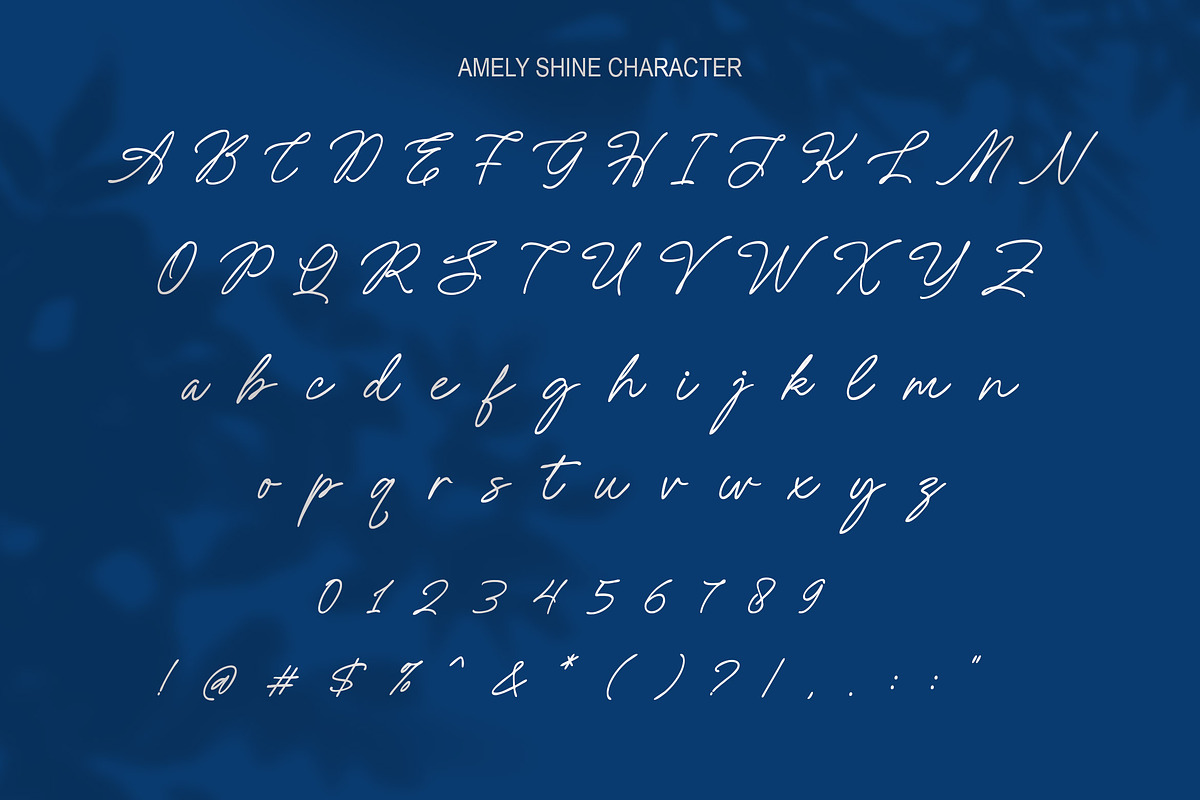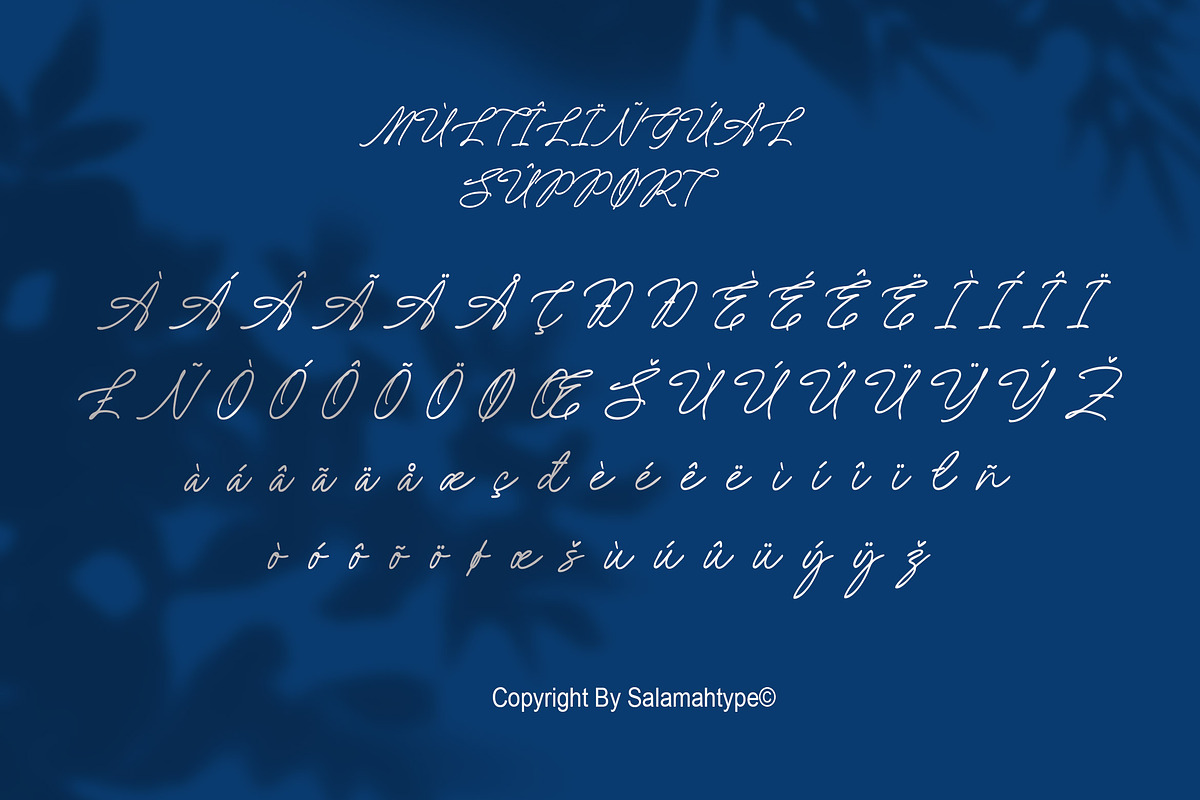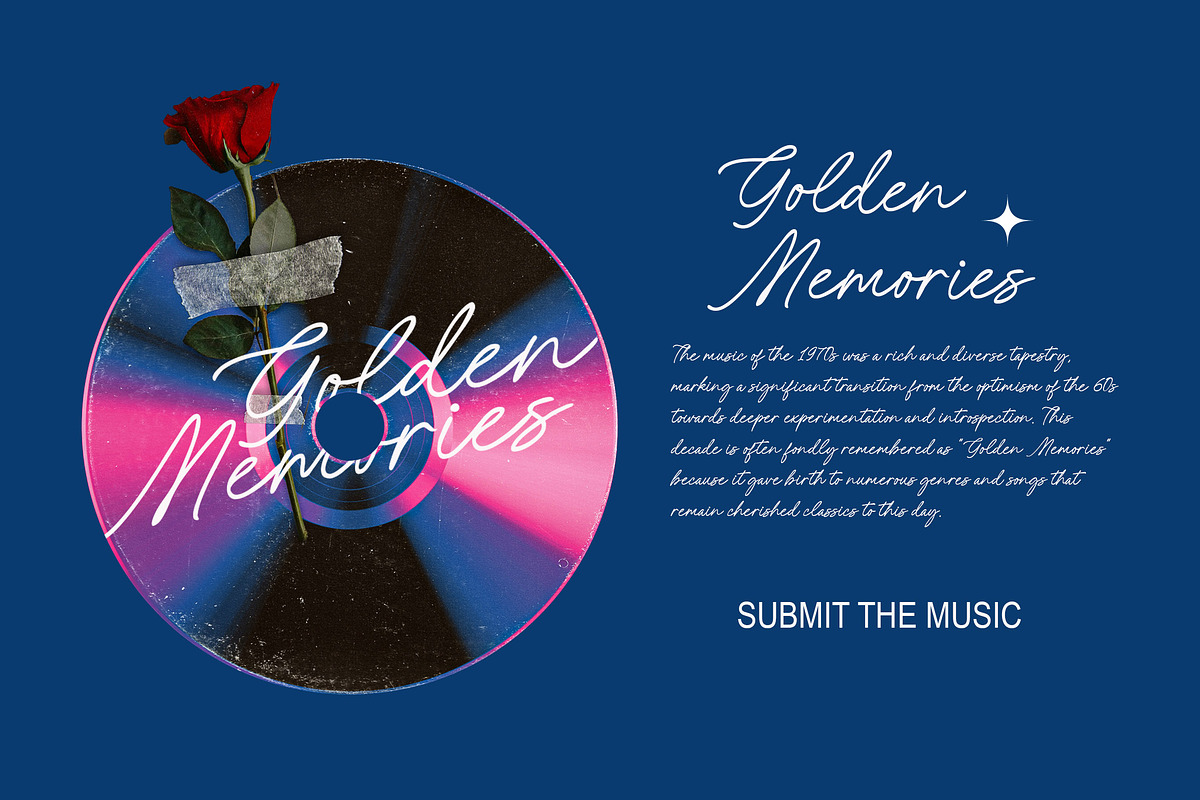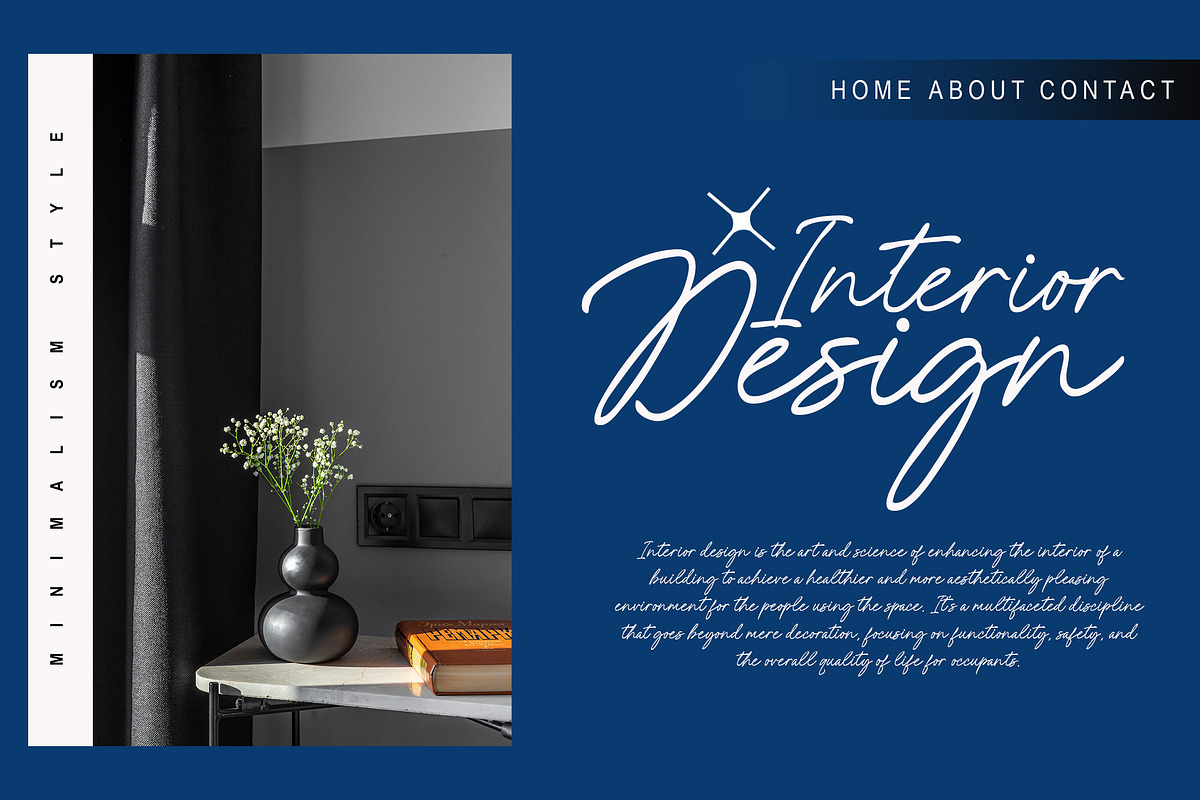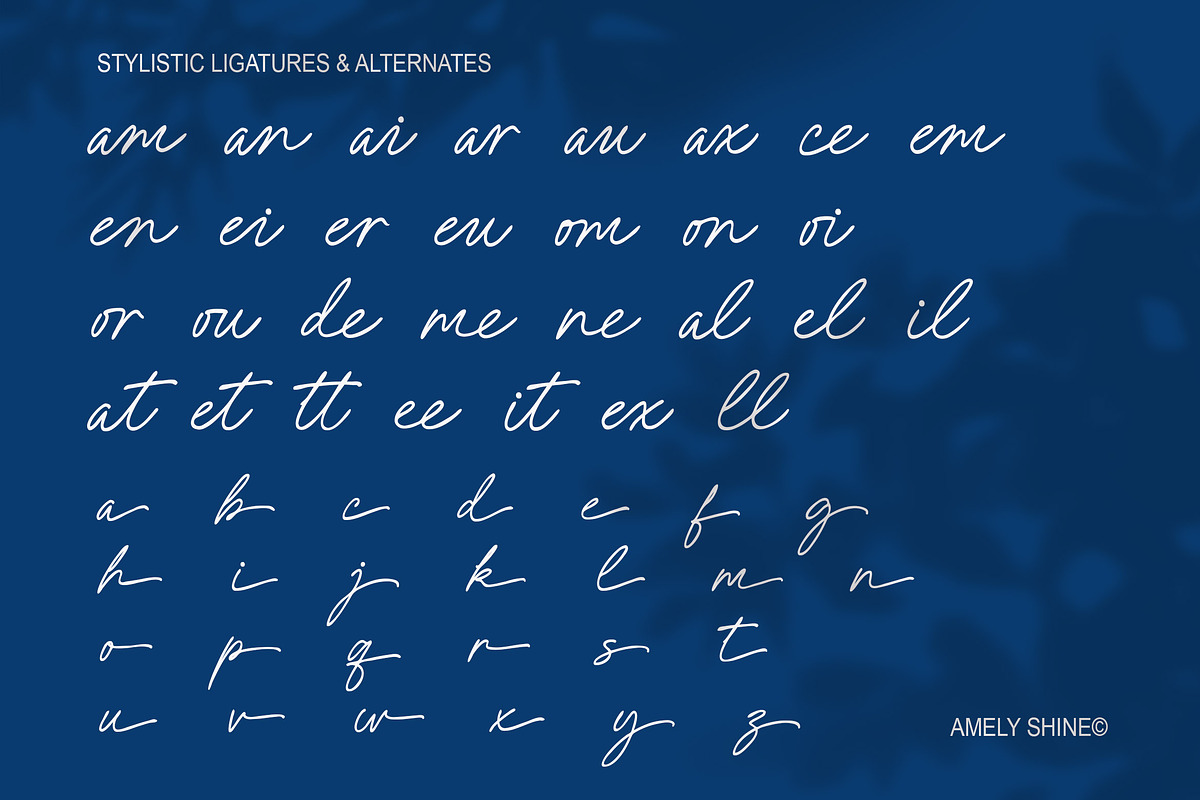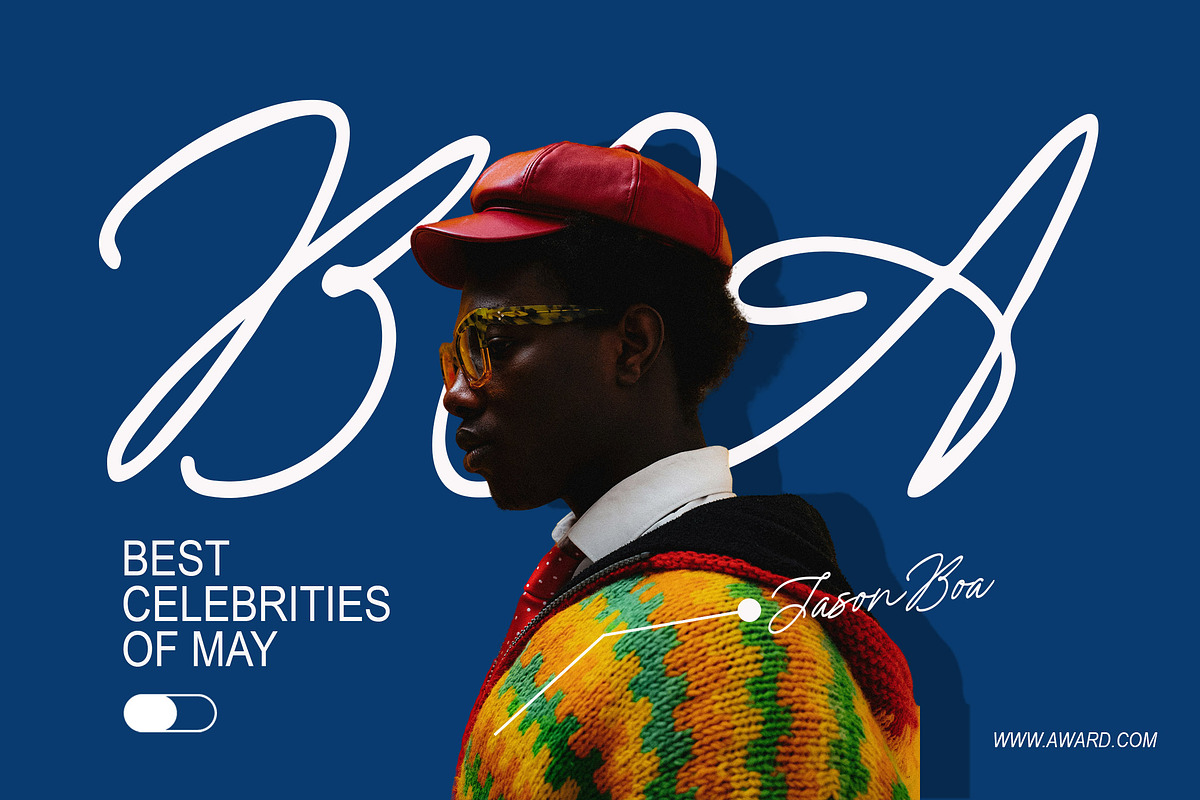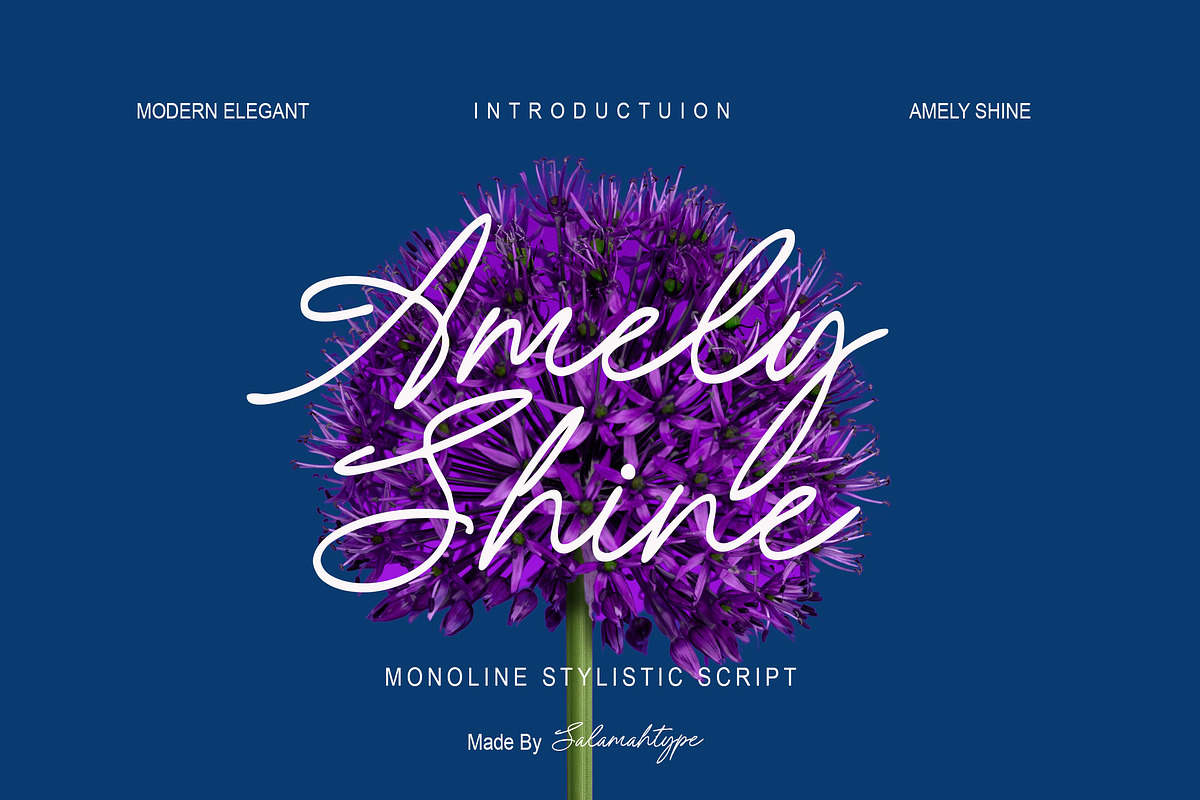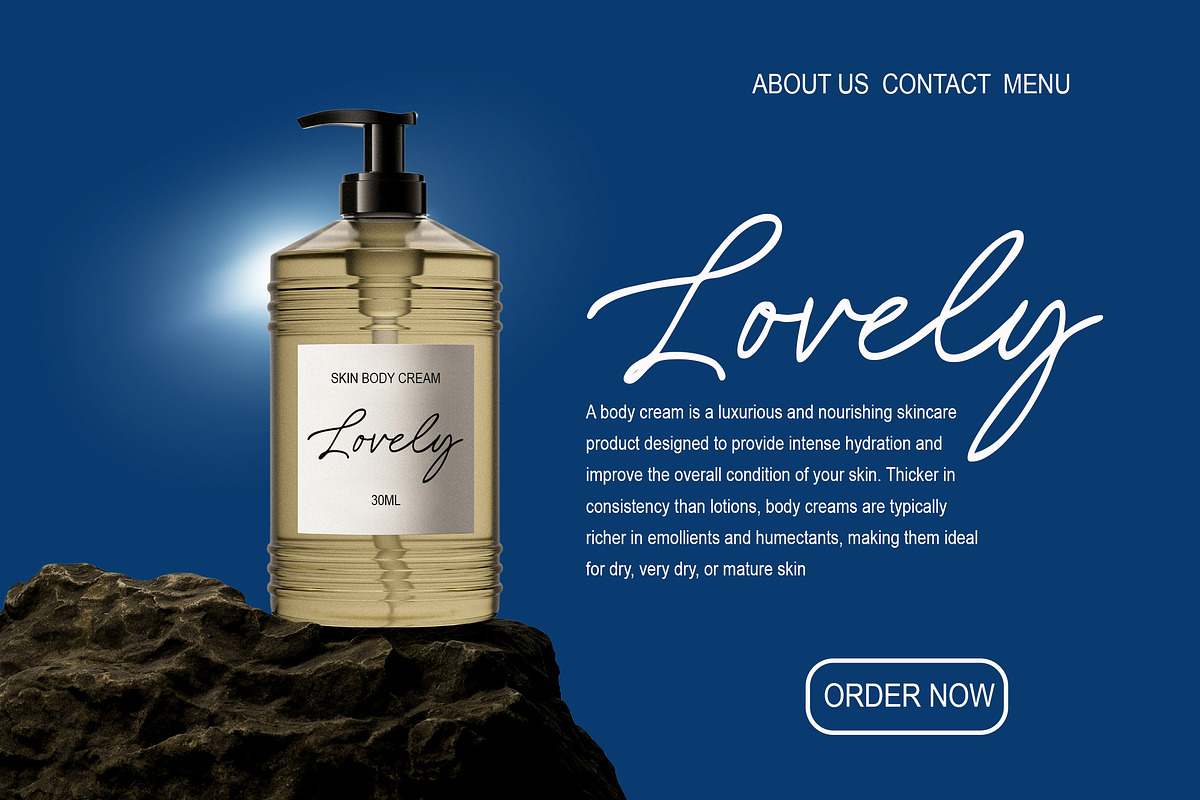
Amely Shine - Beautiful Script Font
Introducing Amely Shine, a modern and elegant monoline script font that brings a graceful and handwritten charm to your creative projects. With its fluid strokes and stylish curves, Amely Shine is perfect for adding a personal, sophisticated touch to wedding invitations, logos, branding, social media quotes, packaging, and more.
Carefully designed with attention to flow and harmony, this font offers natural ligatures and a beautiful rhythm in every letter making it ideal for feminine and refined designs that demand elegance.
- Beautiful monoline script style
- Smooth, flowing curves with stylistic alternates
- Elegant and modern feel
- Great for branding, weddings, social media, and more
- Full multilingual support